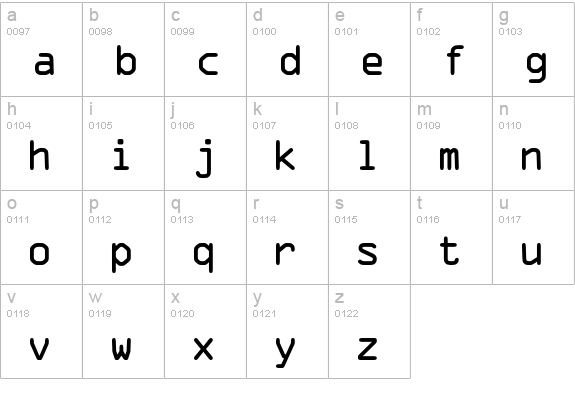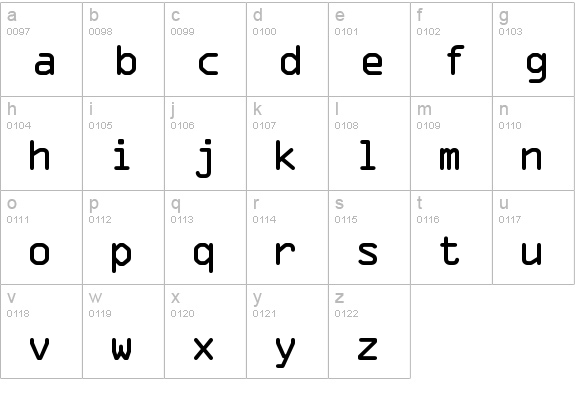
OCRA Font Details
OCRA font is a classic, versatile typeface known for its clean, straightforward appearance. With its distinct geometric shapes and uniform stroke widths, OCRA is perfect for a wide range of design projects, from signage to branding to print materials. The font exudes a sense of professionalism and modernity, making it an excellent choice for both digital and print applications. What's even better is that OCRA font is available for free download at FontsMarket.com. This means you can easily access this high-quality typeface without any cost, allowing you to enhance your projects with a sophisticated and timeless look. Don't miss out on the opportunity to add OCRA font to your font library today!